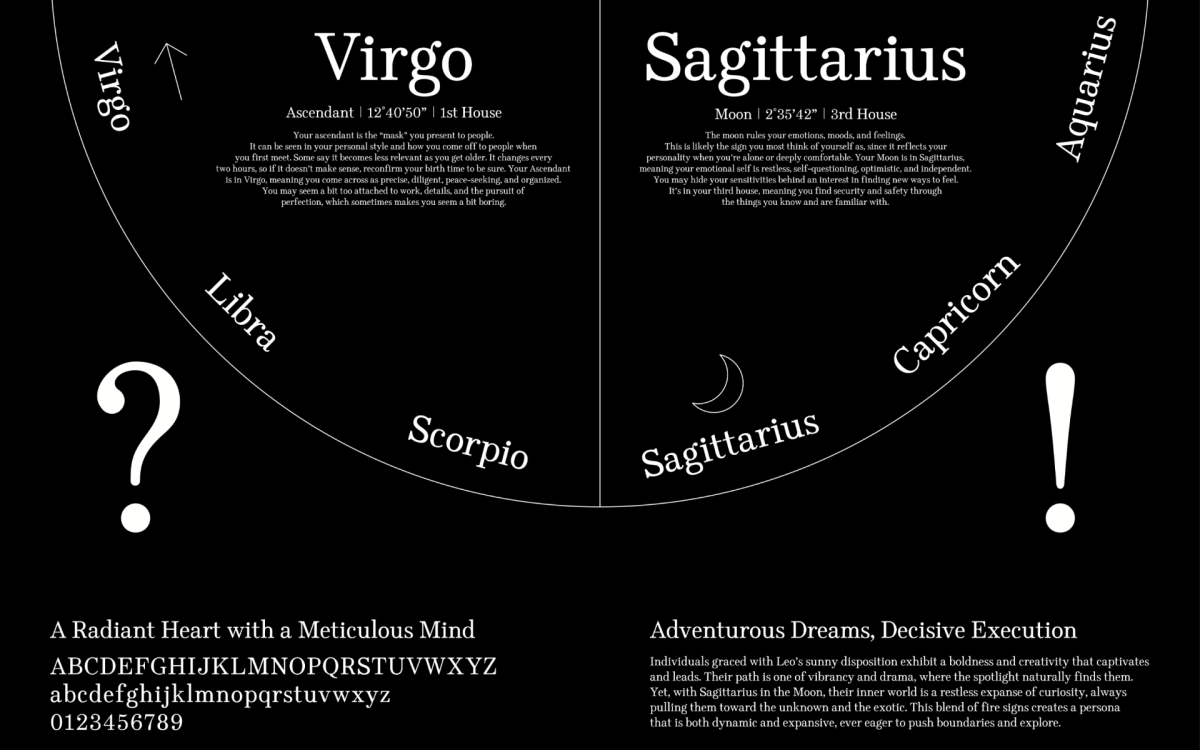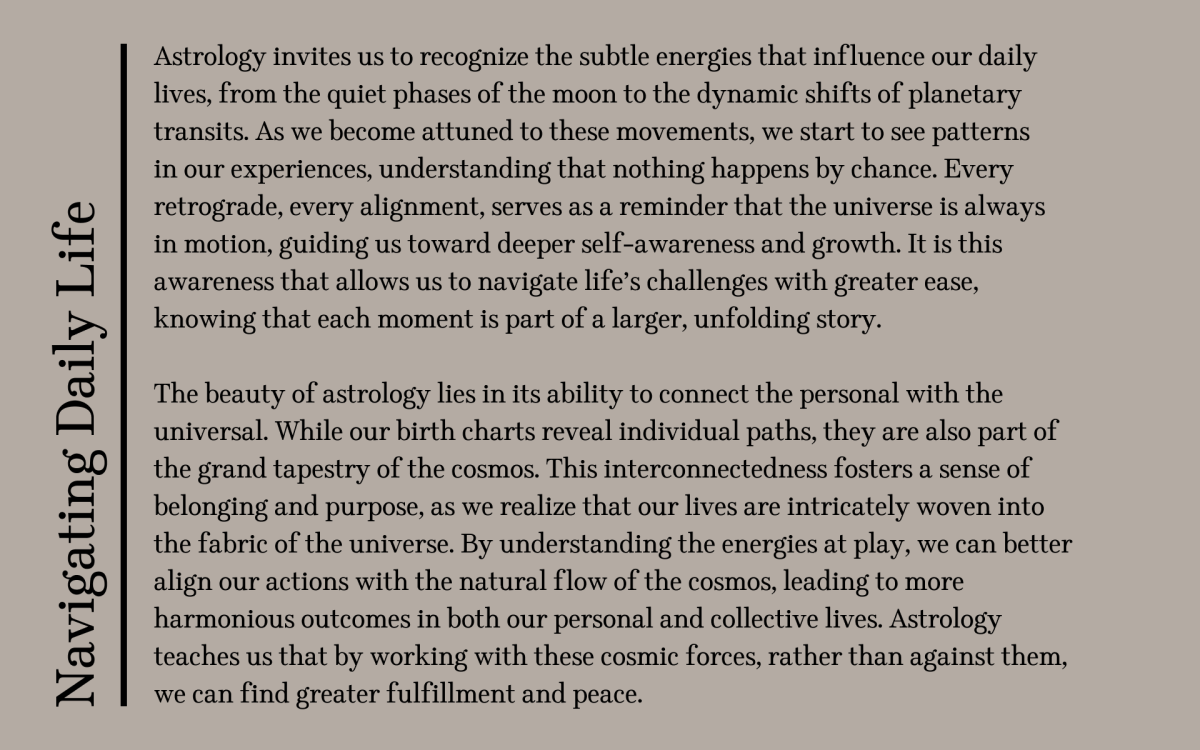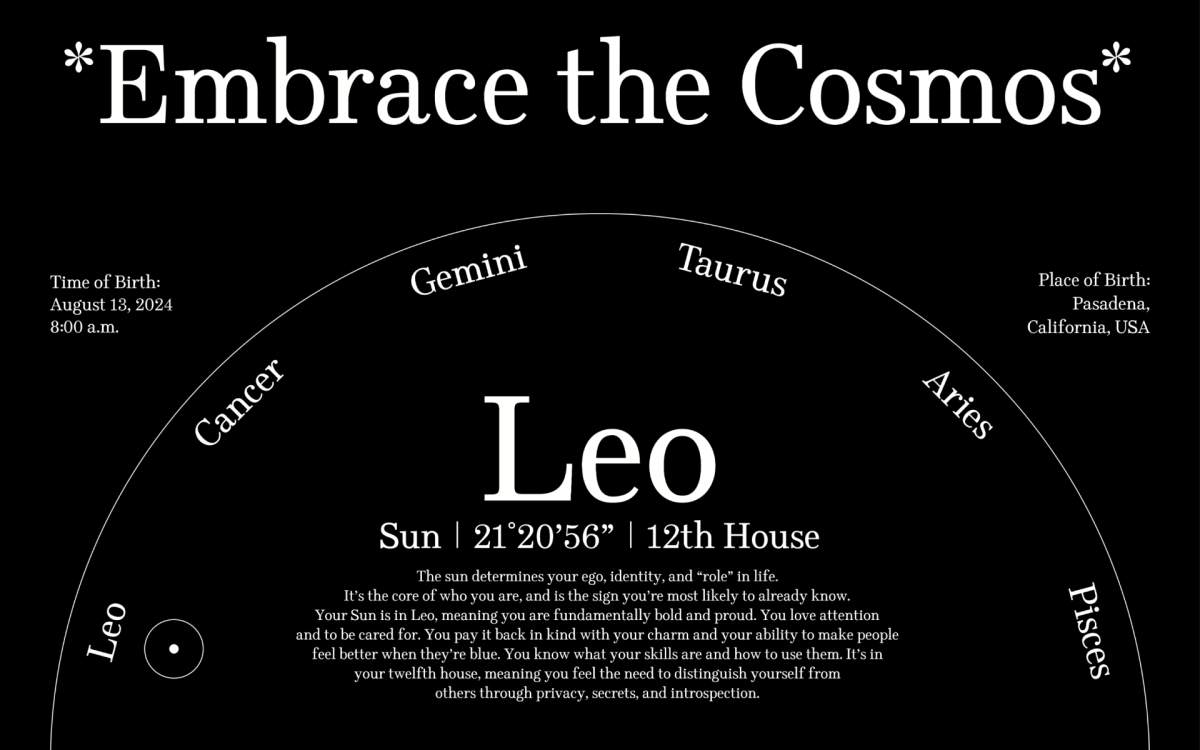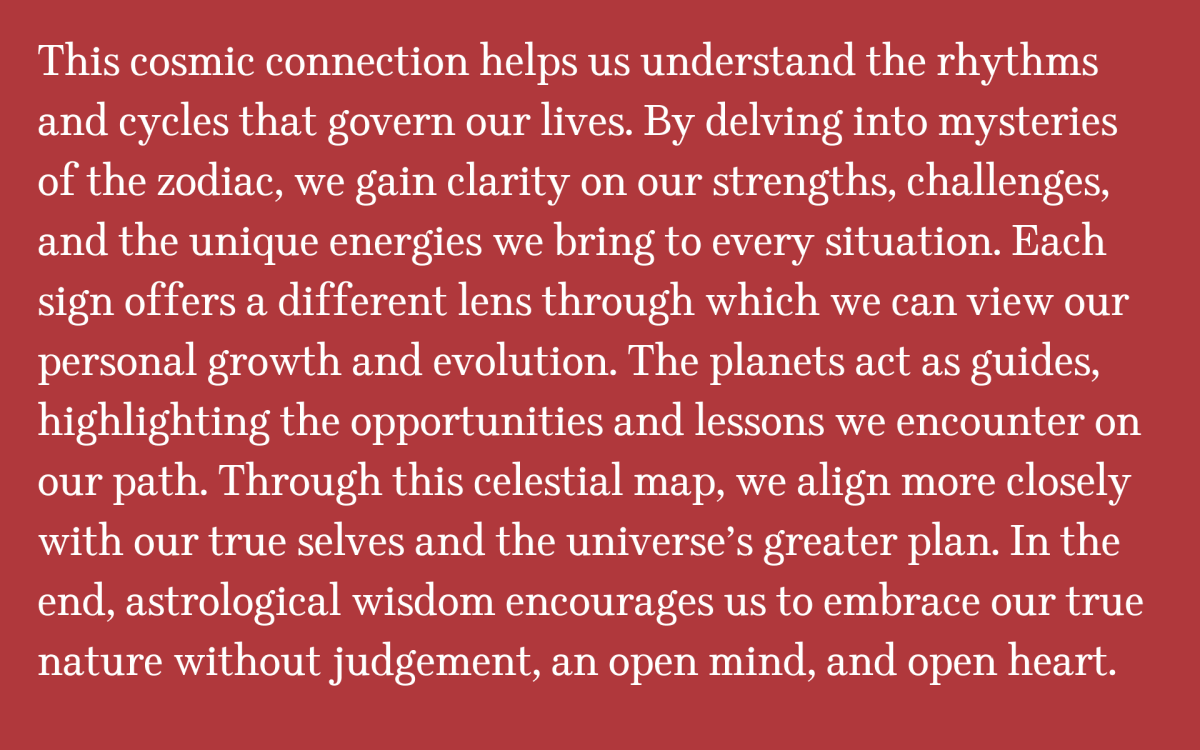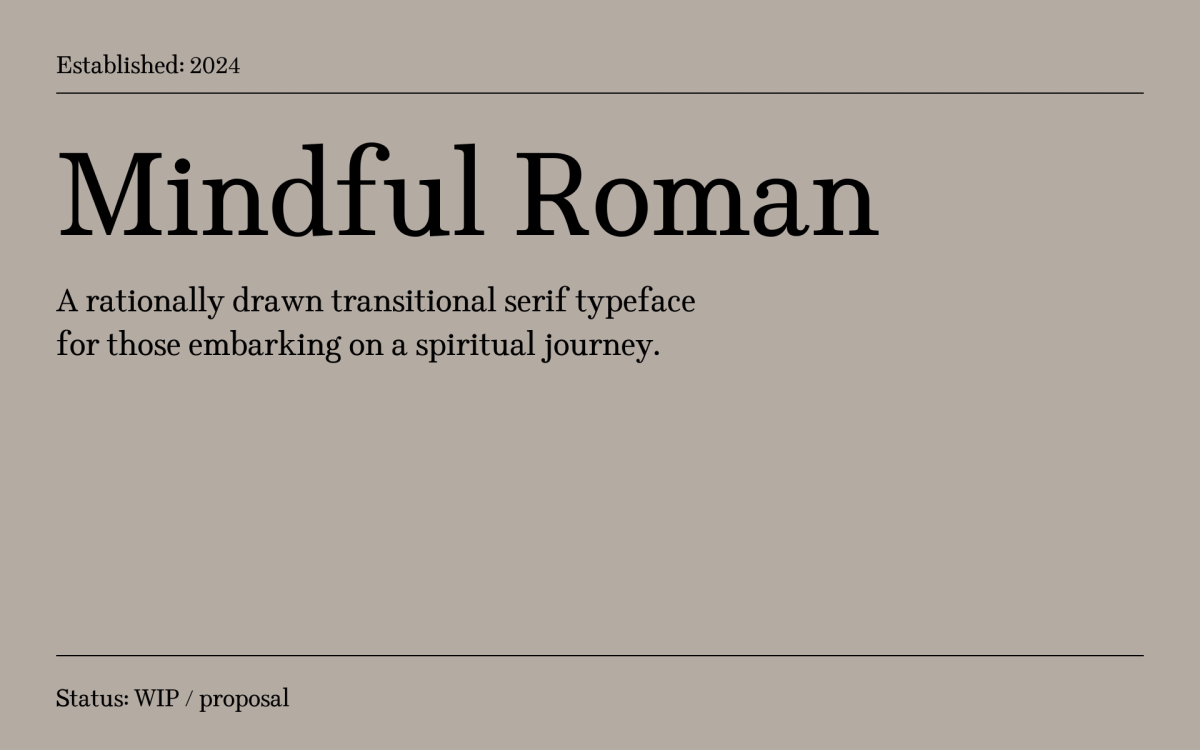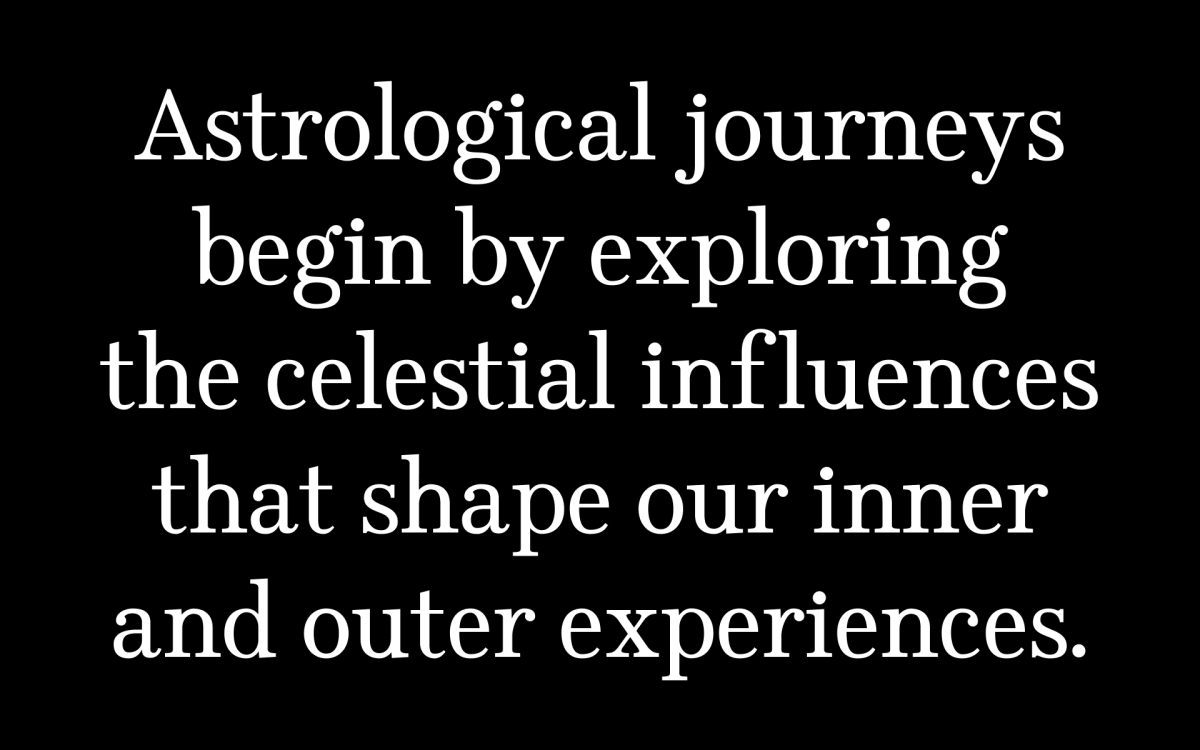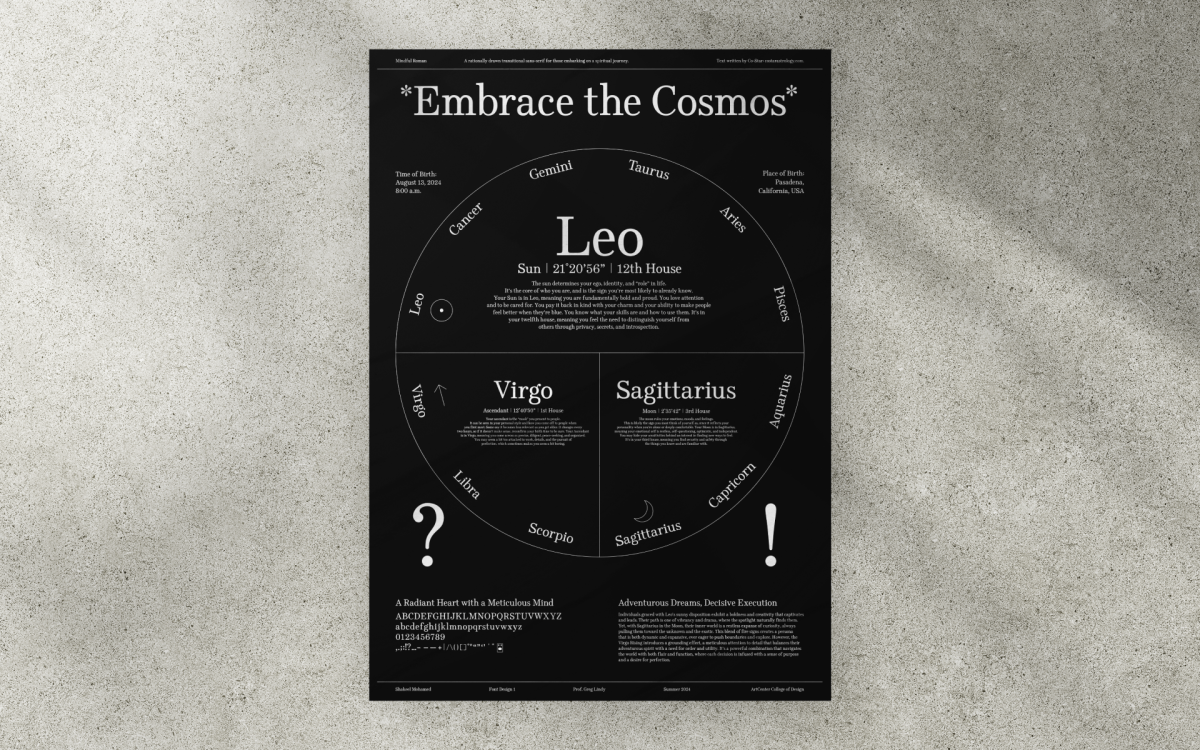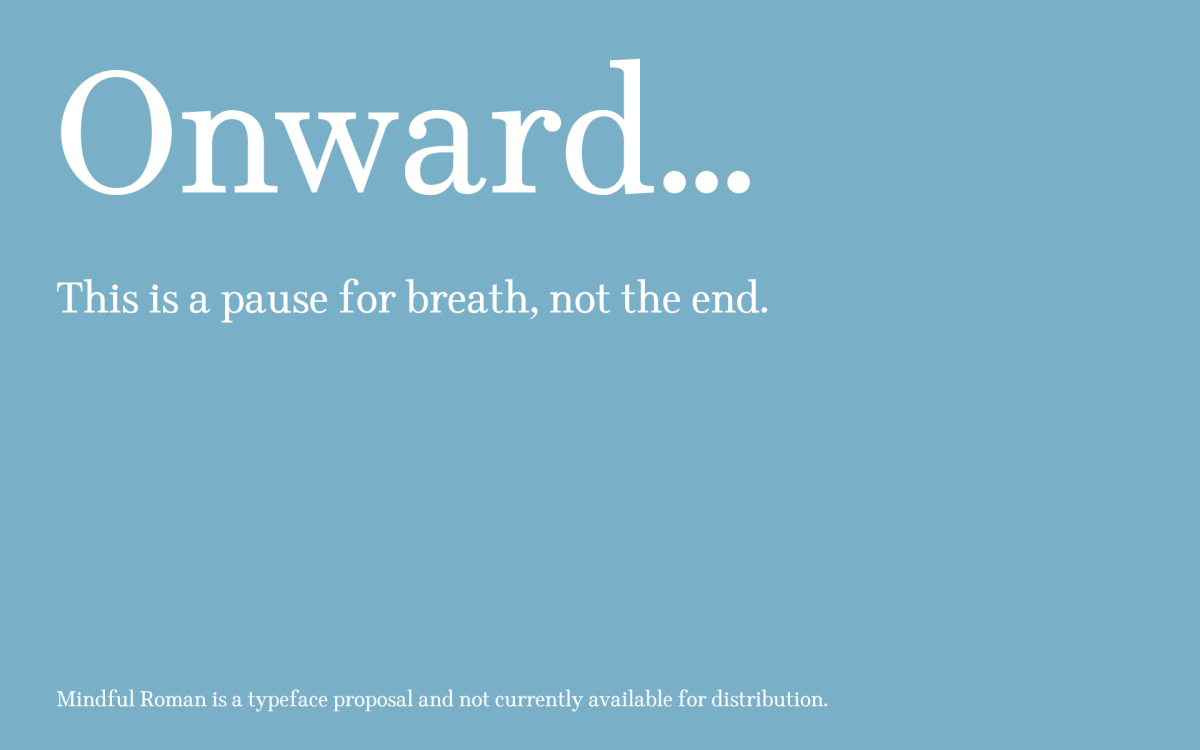
Mindful Roman Typeface
Mindful Roman is a rationally drawn transitional serif typeface for those embarking on a spiritual journey. Typeface references include: Ingeborg, Corporate A, Times New Roman, and Century Schoolbook. I envision this typeface in use for branding, packaging, and editorial projects as a display typeface or for larger text settings. Specifically for projects focused on beauty, healthy lifestyle, and wellness which seek to establish trust.
Greg Lindy is a master type designer. Starting with calligraphic studies, and examining historically significant typefaces built a strong foundation before moving to digital tools. Though I was comfortable with Glyphs and the pen tool before, I gained a new rational approach to bezier curves and an intuition for how to draw them. The “skeleton-first” approach to type design is something I had never seen from online resources for type design.
Font specimen poster as an astrological chart for the birth of the typeface.
Future work includes: refined spacing, kerning pairs, sample print applications, and an italic variant. I would also like to create a few short motion pieces to demonstrate how the typeface is constructed and how it compares to its references.